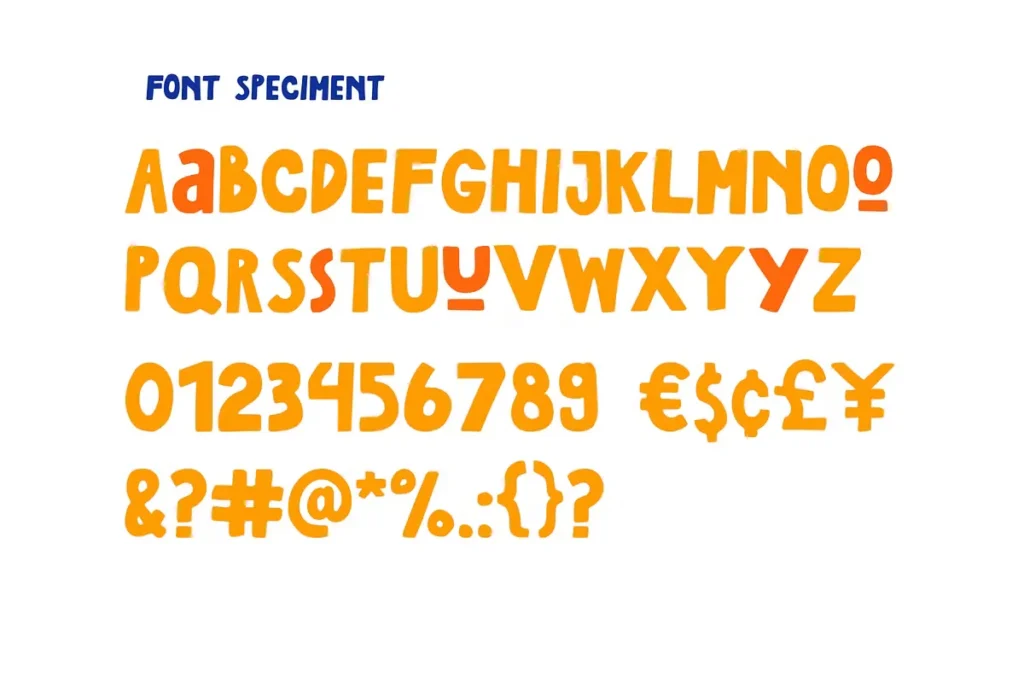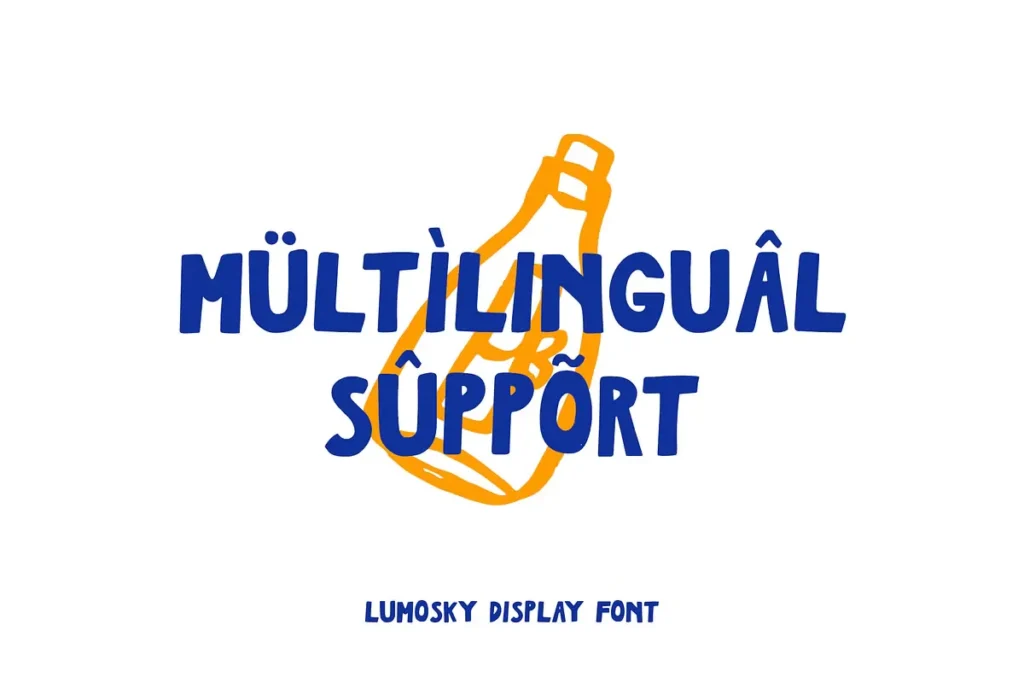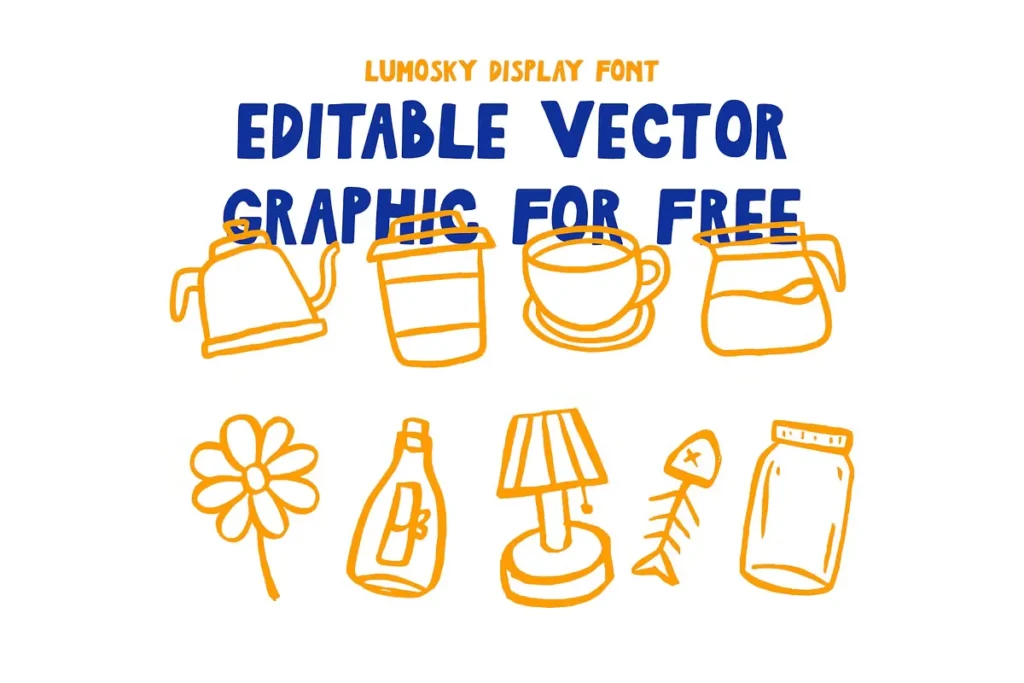
Lumosky – Free Handdrawn Display Font is a uniquely crafted typeface that brings a warm, artisanal charm to any design project. Inspired by hand-drawn lettering and organic sketch styles, Lumosky is a celebration of creativity, personal expression, and visual storytelling. Each letter feels as if it has been carefully inked by hand, offering an authentic, textured look that stands out in both digital and print formats.
Perfect for projects that require a touch of whimsy, rustic elegance, or a bespoke, human element, Lumosky blends the casual appeal of doodles with the precision of thoughtful design. Its handcrafted nature makes it ideal for use in branding, logos, packaging, invitations, posters, and social media graphics. Whether you’re designing for a boutique business, an indie brand, or a creative art project, this font adds a personal and artistic flair that feels raw, real, and intentionally imperfect.
Lumosky is versatile enough to be used as a headline or display font, yet quirky and distinctive enough to add character in smaller typographic details. With influences from brush strokes, pen-and-ink drawings, and bohemian aesthetics, it fits seamlessly into any layout where a decorative, hand-scripted touch is needed.
The font’s organic curves, textured lines, and natural flow make it a standout choice for designers who want their typography to feel more alive and emotionally resonant. Download Lumosky today and bring your next project to life with a font that’s not only free to use, but also full of heart, soul, and handcrafted charm.
Lumosky Free Hand-drawn Display Font